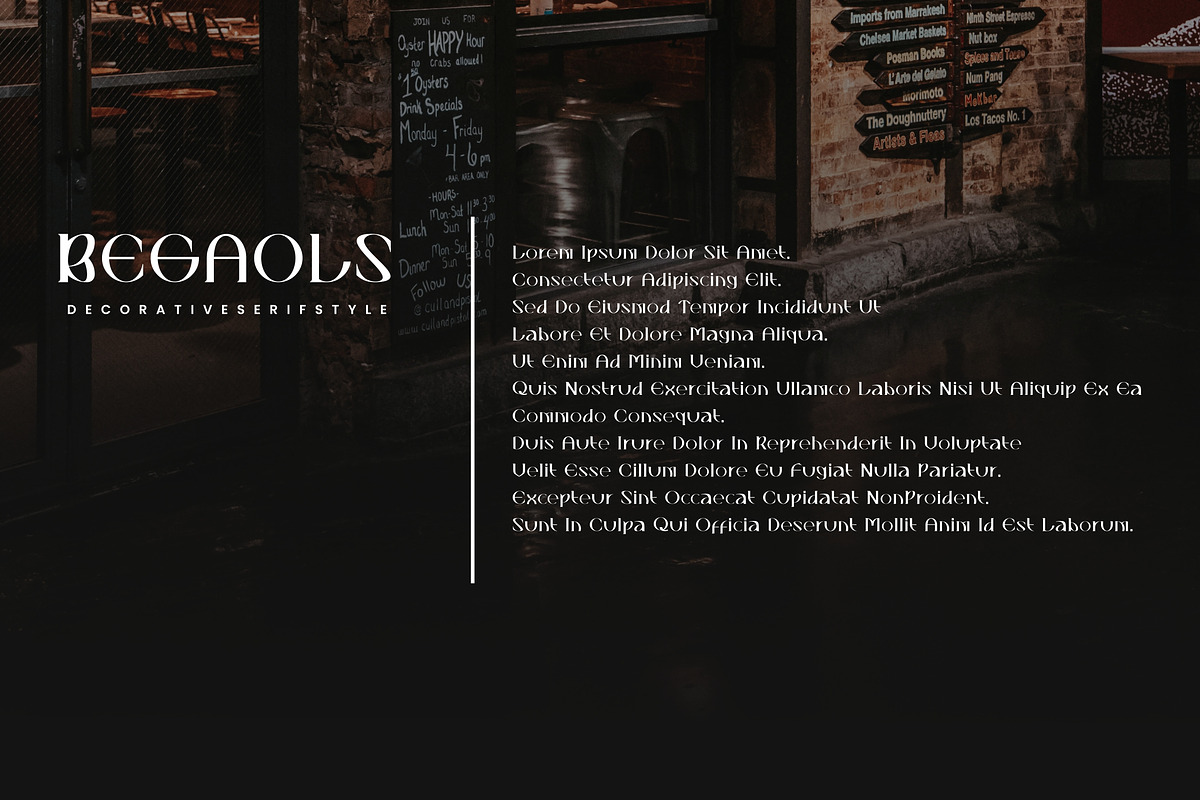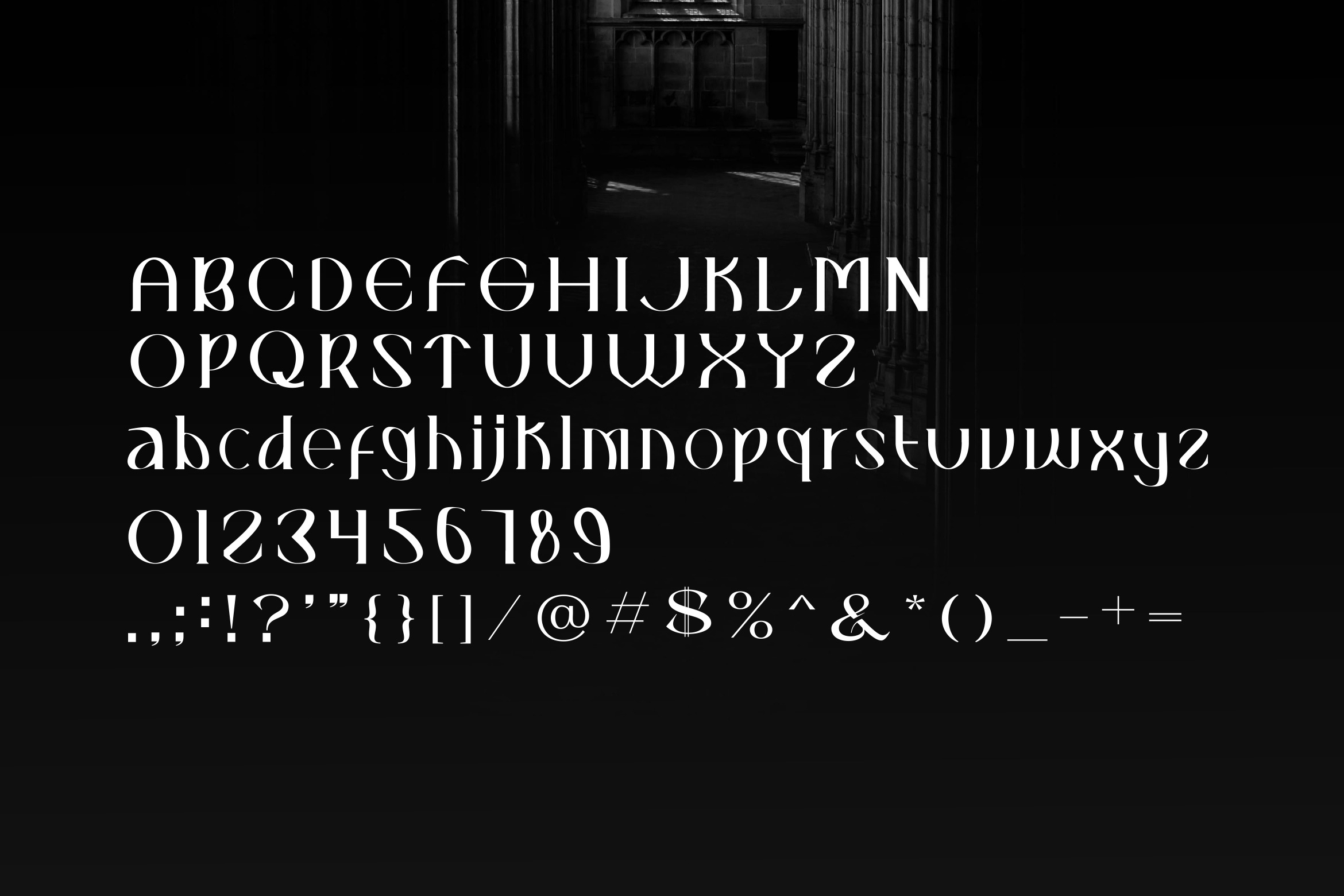
Begaols Decorative Font Style.
Begaols Decorative Font Style– related to travel, history & culture in the present/modern way,lifestyle designs such as logos, title, magazine, and more.